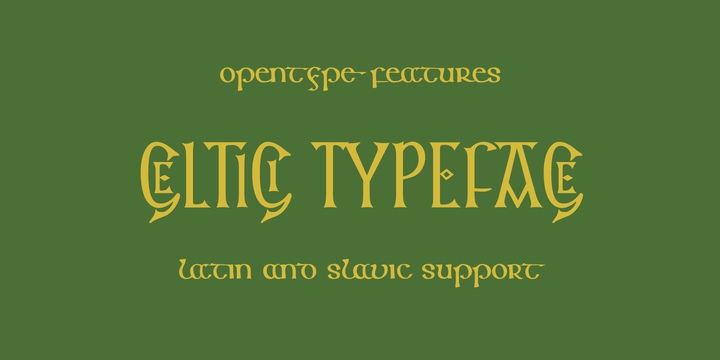
Keltichi Font
Keltichi Font is perfect for Irish pub branding, Celtic festival posters, medieval-themed games, fantasy book covers, Scottish distillery labels, heritage tourism materials, mystical product packaging, traditional craft brewery signage, folk music album artwork, and ancient mythology publications. This authentic typeface excels in applications where Celtic heritage, mystical atmosphere, and ancient wisdom are central design elements.
Keltichi Font is exciting because it masterfully captures the intricate beauty and spiritual depth of ancient Celtic manuscript traditions through its ornate letterforms and decorative flourishes. Its carefully crafted characters feature traditional knotwork patterns, spiral motifs, and sacred geometric elements that evoke the rich cultural heritage of Celtic civilization. The font's authentic construction maintains historical accuracy while ensuring contemporary readability and professional application standards.
The Keltichi Font family includes Regular, Bold, Ornamental, and Decorative variations, each featuring extensive Celtic-inspired embellishments and traditional design elements. The family includes authentic Celtic borders, illuminated capitals, sacred symbols, and mystical ornaments that complement the main character set. Specialized glyphs feature traditional Celtic crosses, trinity knots, and ancient runic symbols that enhance the historical authenticity of design projects.
Professional designers appreciate Keltichi Font for its ability to convey spiritual depth, cultural heritage, and ancient wisdom. The font's powerful presence works exceptionally well in applications where historical authenticity and mystical atmosphere are paramount. Its distinctive personality makes it perfect for brands seeking to communicate tradition, spirituality, and connection to Celtic cultural roots.
The mystical character of Keltichi Font transforms ordinary communications into enchanting journeys through ancient Celtic traditions and spiritual wisdom. Its authentic appearance resonates with audiences seeking meaningful connections to heritage, spirituality, and the timeless beauty of Celtic artistic expression.